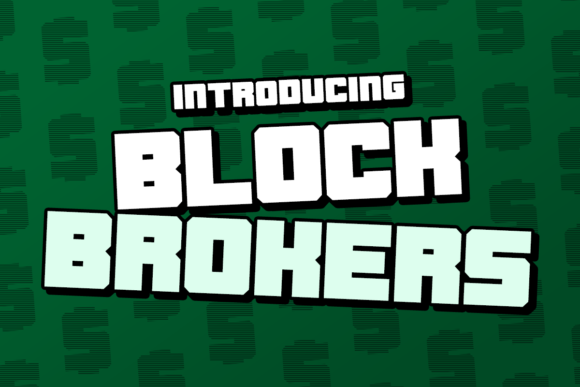
Introducing Blockbroker Font: A Simple yet Striking Typeface by Chequered Ink
In the world of typography, a good font can make all the difference in the success of a design project. Whether you’re a professional graphic designer or a crafty DIY enthusiast, having the right typeface can elevate your work from ordinary to extraordinary. That’s where Blockbroker font comes in – a simple yet striking typeface designed by Chequered Ink that’s taking the design community by storm.
The Story Behind Blockbroker Font
Blockbroker font is the brainchild of Chequered Ink, a design studio known for its creative and innovative approach to typography. The studio’s mission is to create unique and versatile fonts that cater to the diverse needs of designers and crafters. With Blockbroker, they’ve succeeded in crafting a typeface that’s both modern and timeless, with a distinctive character that’s hard to ignore.
What Makes Blockbroker Font So Special?
So, what sets Blockbroker font apart from other typefaces out there? Here are a few key features that make it so special:
- Simple yet striking design: Blockbroker font boasts a clean and minimalist design that’s perfect for creating bold and eye-catching headlines, titles, and logos.
- Highly versatile: This typeface is incredibly versatile and can be used for a wide range of design projects, from branding and advertising to packaging and signage.
- Excellent legibility: Blockbroker font is designed to be highly legible, even at small sizes, making it perfect for use in body text and captions.
- Unique character: The font’s distinctive character is sure to add a touch of personality to any design project.
Design Inspiration and Applications
Blockbroker font is perfect for designers and crafters looking to add a touch of modern sophistication to their work. Here are some design inspiration and applications to consider:
- Branding and logos: Use Blockbroker font to create bold and memorable logos that make a lasting impression.
- Headlines and titles: This typeface is perfect for creating eye-catching headlines and titles that grab attention.
- Packaging design: Blockbroker font is ideal for packaging design, adding a touch of modern style to product labels and packaging.
- Signage and display: Use this typeface to create eye-catching signage and display text that’s sure to stand out.
Tips for Using Blockbroker Font Effectively
To get the most out of Blockbroker font, here are some tips to keep in mind:
- Experiment with font sizes: Blockbroker font looks great at a range of font sizes, from large headlines to smaller body text.
- Play with color: This typeface looks great in a range of colors, from bold and bright to subtle and muted.
- Mix and match: Try pairing Blockbroker font with other typefaces to create a unique and visually appealing design.
In conclusion, Blockbroker font is a simple yet striking typeface that’s perfect for designers and crafters looking to add a touch of modern sophistication to their work. With its highly versatile design, excellent legibility, and unique character, this font is sure to become a staple in any designer’s toolkit. So why not give Blockbroker font a try and see how it can elevate your design projects to the next level?
- Font Style: Sans Serif
- Font Use: Headlines, titles, logos, branding, packaging, signage, and display text